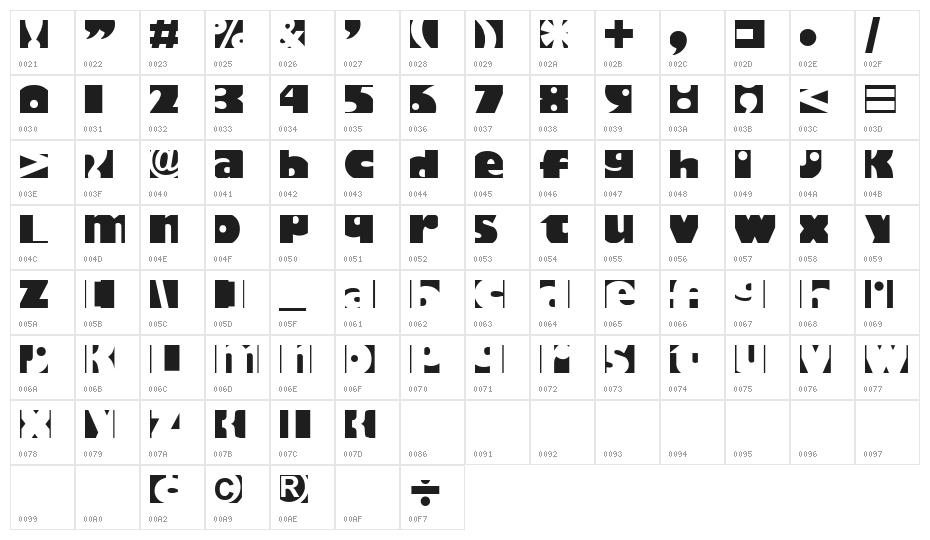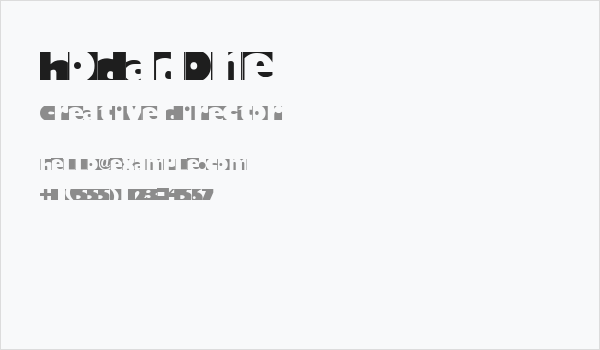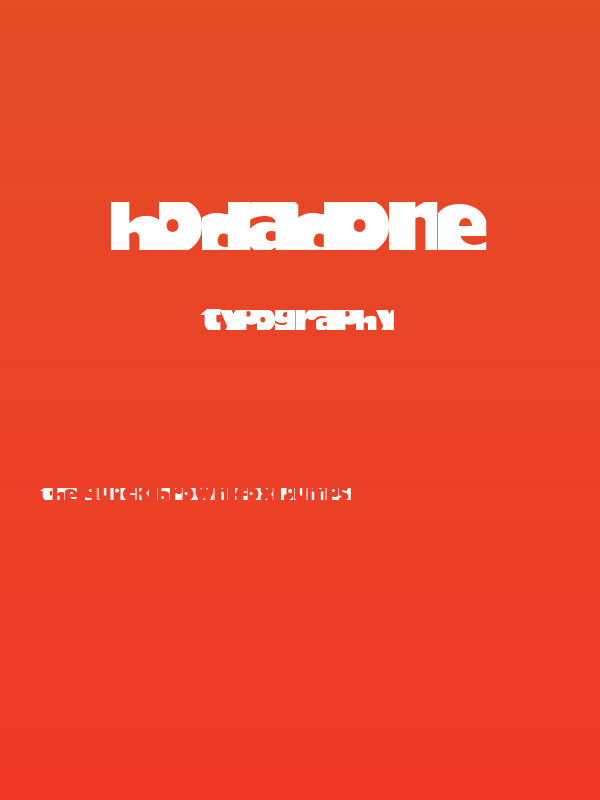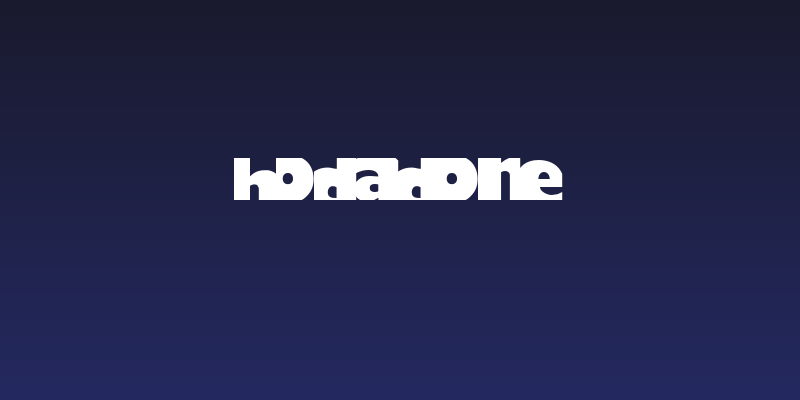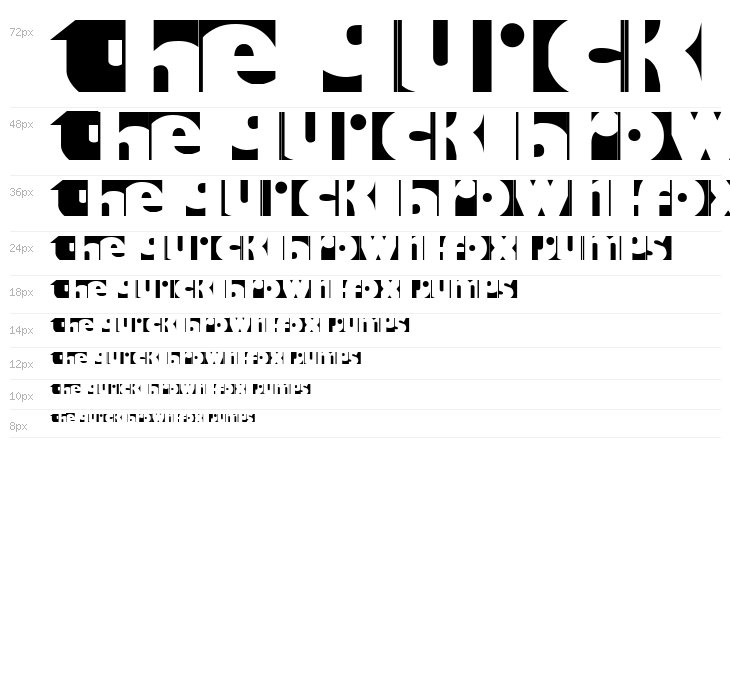
HoDadOne Font
HoDadOne Description
This font features a bold and geometric design with a strong emphasis on circular and rectangular shapes. The characters are constructed with thick strokes, creating a heavy and impactful appearance. The uppercase letters are particularly striking, with their solid forms and minimal negative space. The lowercase letters maintain the same boldness, offering a consistent look across the typeface. Numbers and special characters follow the same design principles, ensuring uniformity. The font's unique style makes it stand out, ideal for projects that require a modern and eye-catching typeface.